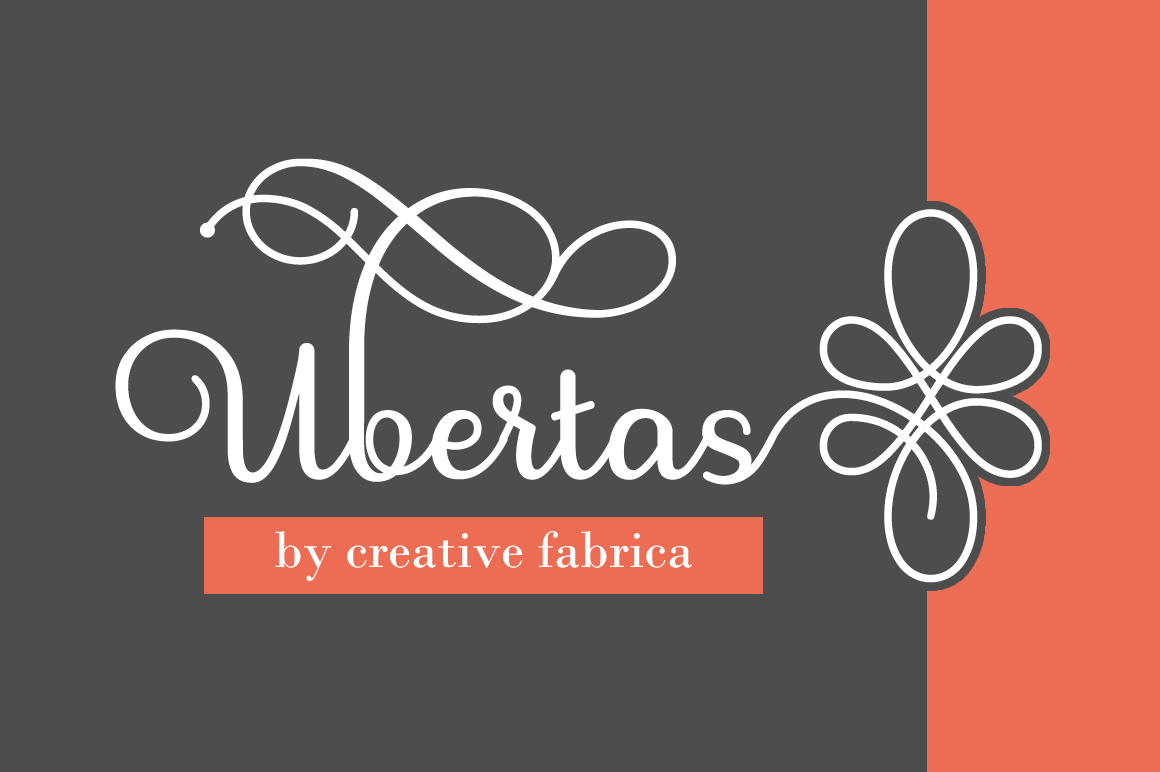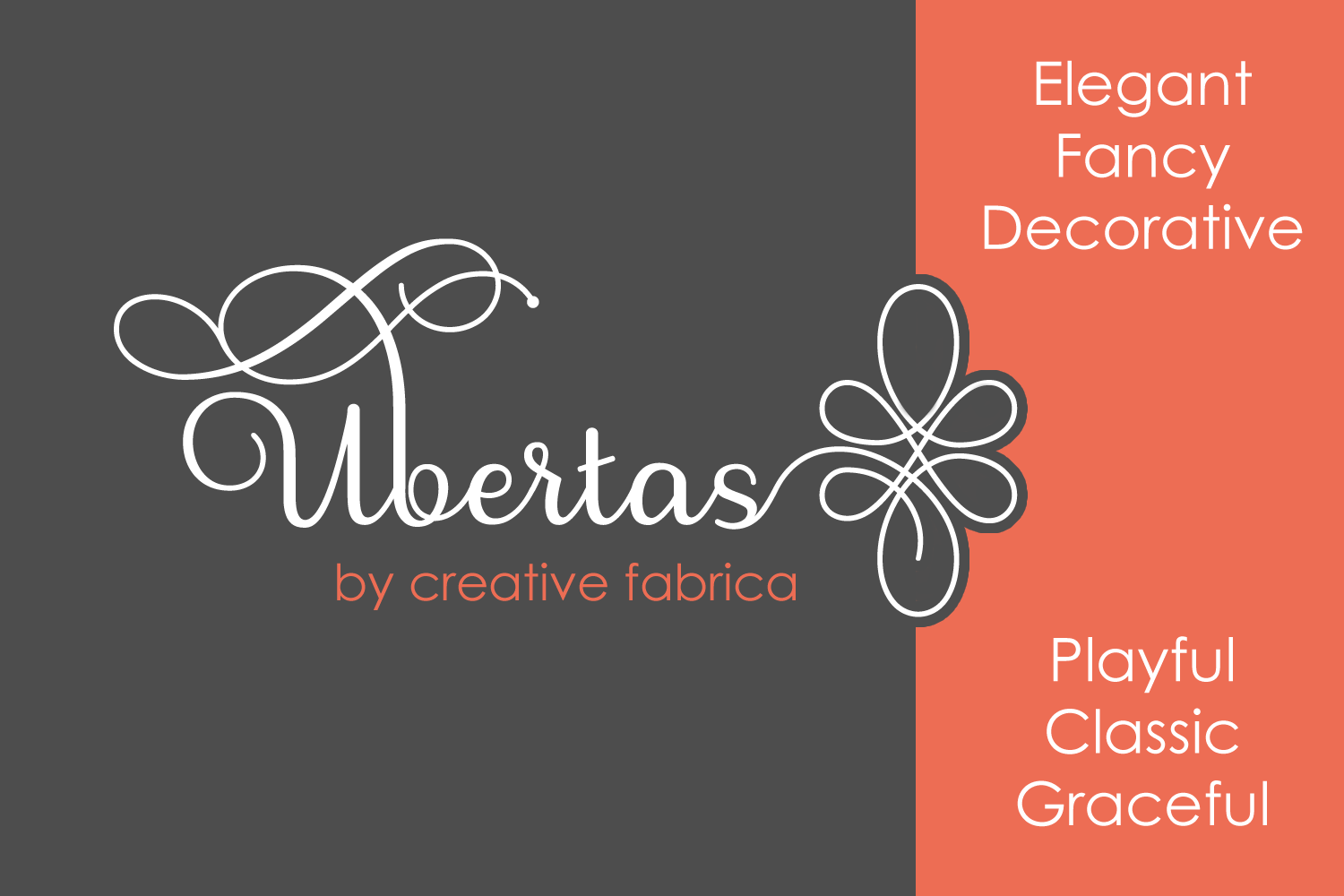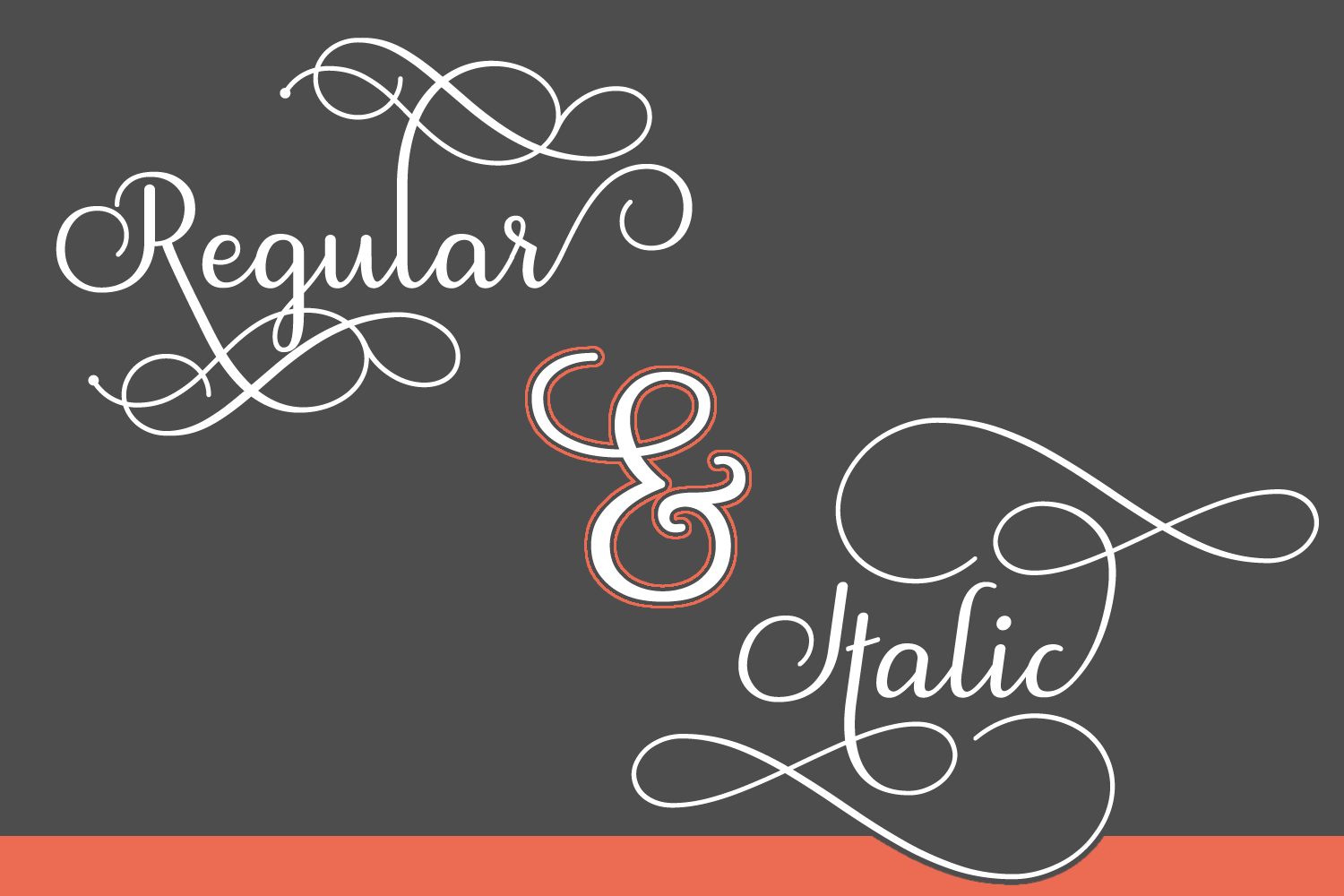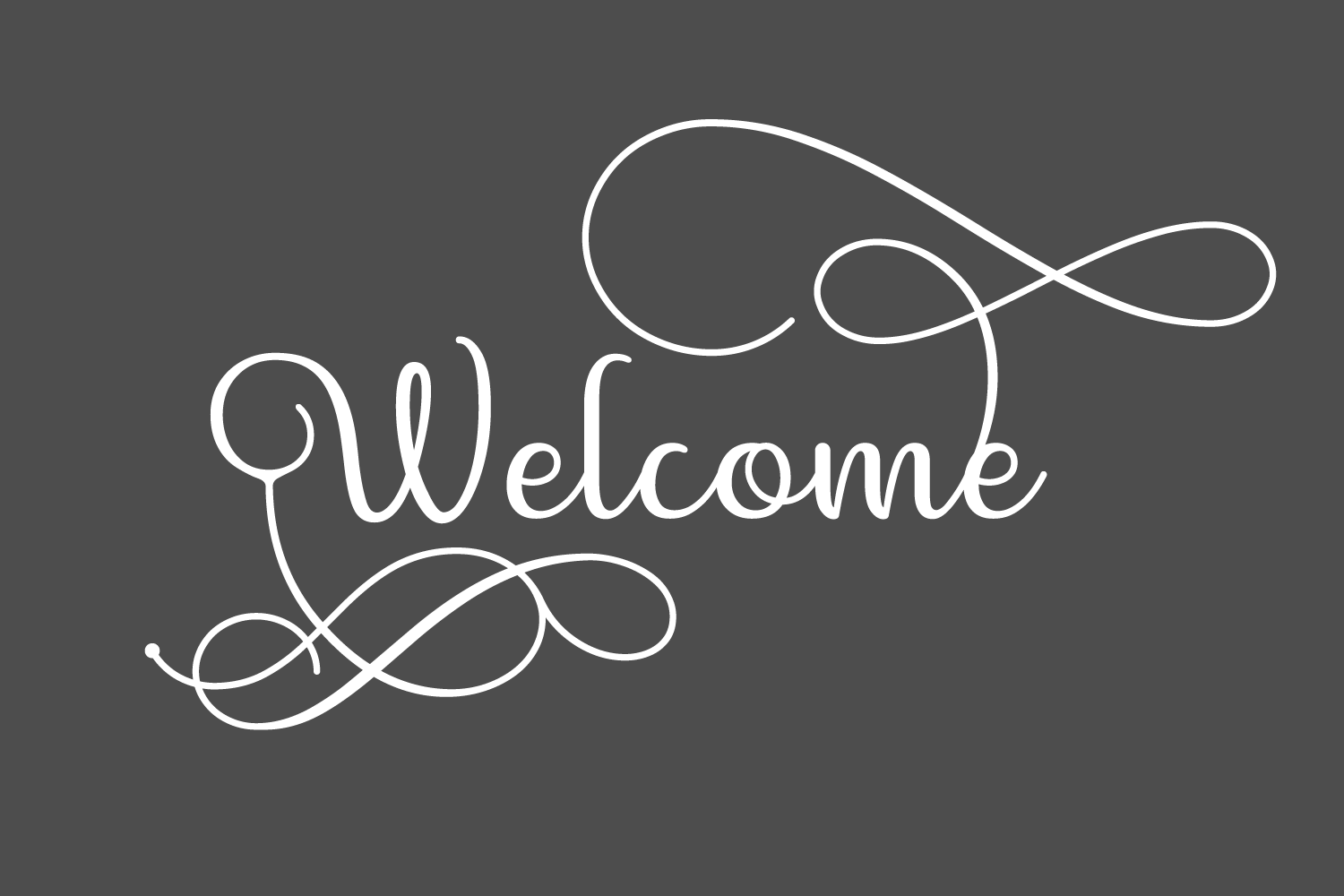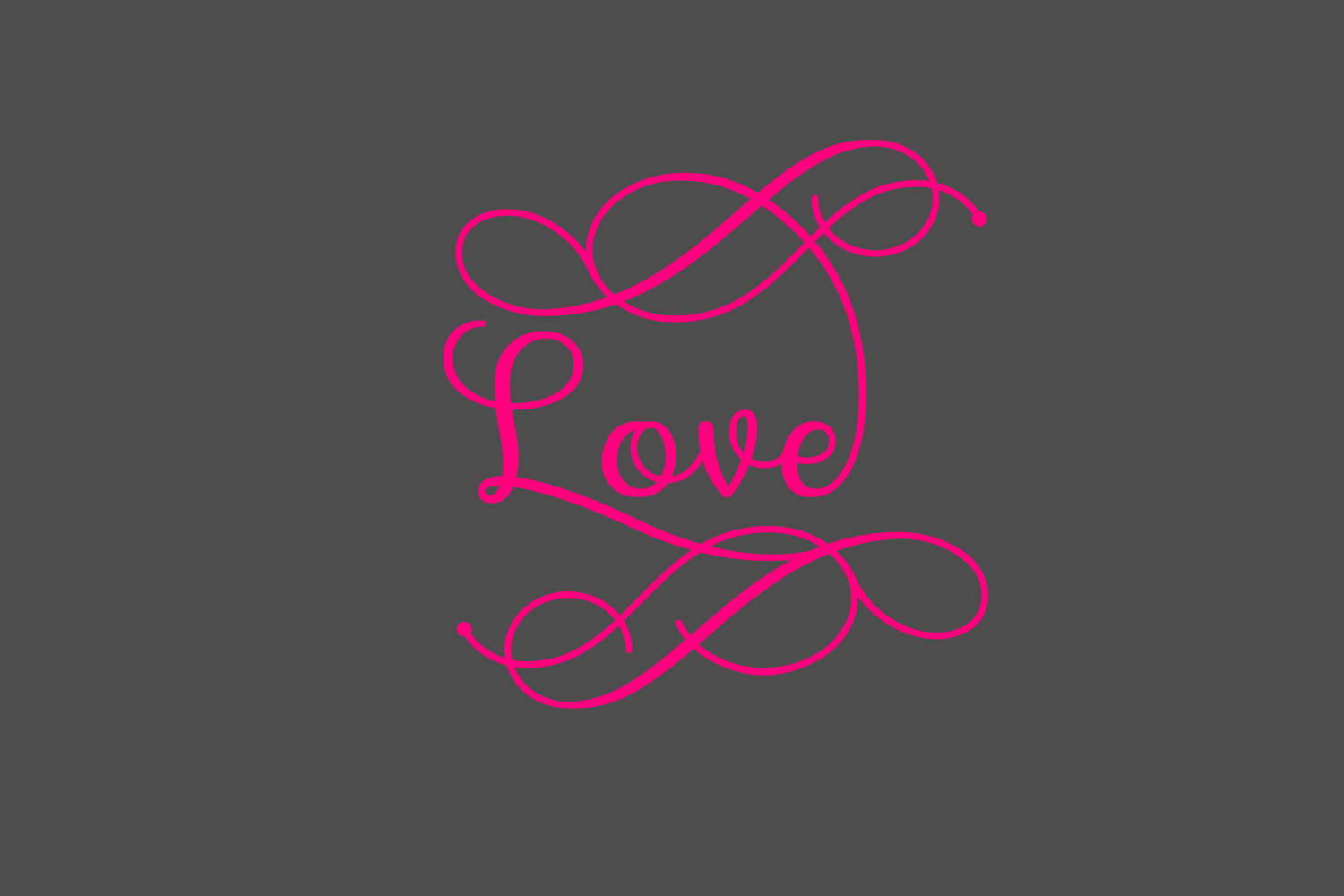
About Ubertas Font
Ubertas is packed with stunning alternates, allowing you to create endless varieties. You will never run out of possibilities and with Ubertas you can whip up something unique, no matter how many times you use it.
Ubertas comes with 833 unique characters. Each and every one of these characters are thoughtfully drawn and perfected to create a consistent look and feel.
When creating Ubertas we decided to pay extra attention to the readability. The result is a typeface that doesn’t only look stunning and has many decorative features, it is also very pleasant and easy on the eyes, making it a very functional font. This opens up a whole world of possibilities as you can even use it as regular body text.